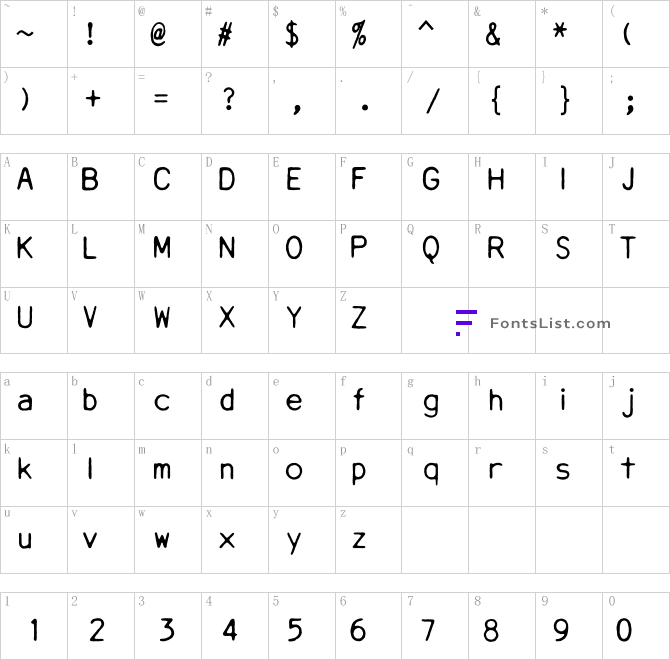
- Font Name:DaisyWheel
DaisyWheel.otf is a very beautiful artistic font, DaisyWheel.otf is widely used in the design and printing of various books and pictures,DaisyWheel.otf has a strong visual impact,DaisyWheel.otf is a commonly used font in newspapers, magazines and books, and is used in posters, e-commerce Poster design, store design, logo design, font design and other fields.DaisyWheel.